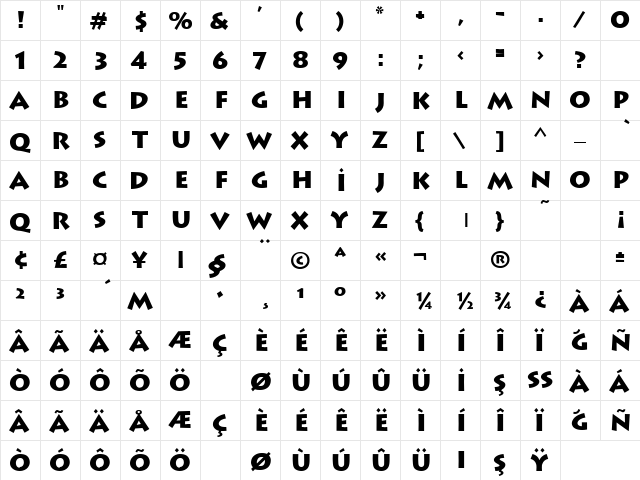
TR Lithograph Bold
Design Context for TR Lithograph Typeface
TR Lithograph takes a measured approach to typography — its balanced proportions and neutral character make it a reliable workhorse for both digital and print work. Its bold stroke weight gives it real presence on the page.
Pro Tip: Use TR Lithograph in both headline and body roles to test its range before committing to a single application.